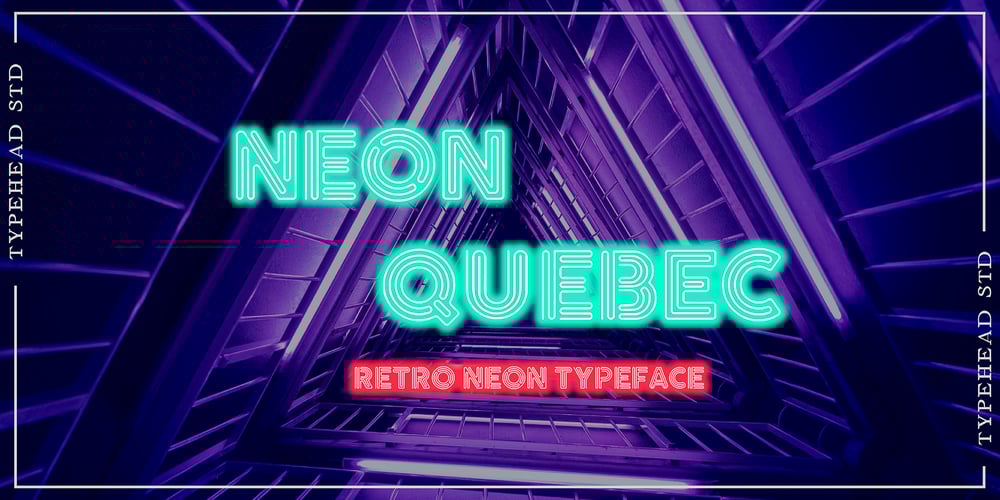
Neon Quebec Font Family was designed by Gatot Triardi Pramaji and published by Typehead Studio. Neon Quebec contains 1 styles and family package options. Neon QuebecThis font appears inspired by the retro neon style of the twentieth century.comes with all the beautiful capital letters, a little retro style but still relevant today. New modern & fresh display font in neon light style with a futuristic touch makes this font look elegant, stylish and perfect for any awesome project that requires a futuristic look.What’s Included : – Uppercase Character – Lowercase Character – Numbers – Punctuation – Multilingual SupportThank you for your purchase! and hope you’re having fun with Neon Quebec ! Happy creating!